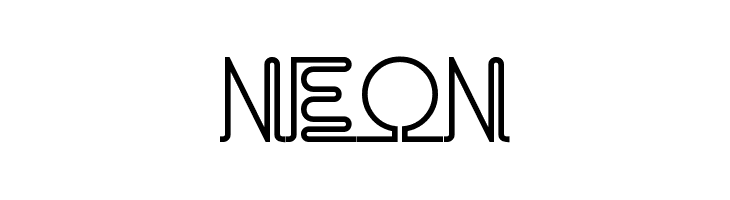
( Andres Sanchez - www.andresls.com )
A modern, geometric font with clean lines and consistent stroke width.
( Fonts by Emil Bertell - www.fenotype.com )
A modern, neon-inspired font with bold, continuous lines and geometric shapes.
( Fonts by Galdino Otten - galdinootten.com )
A bold, italic font with a modern slant and shadow effect.
( Nirmana Visual - Sigit Dwipa - www.instagram.com/nirmanavisual/ )
A modern, geometric font with a neon outline style.
A bold, geometric font with a futuristic and tech-inspired design.
A playful, neon-inspired font with a hand-drawn aesthetic.
A modern cursive font with elegant, flowing lines and a handwritten style.
A futuristic, geometric font inspired by neon lights and circuit patterns.